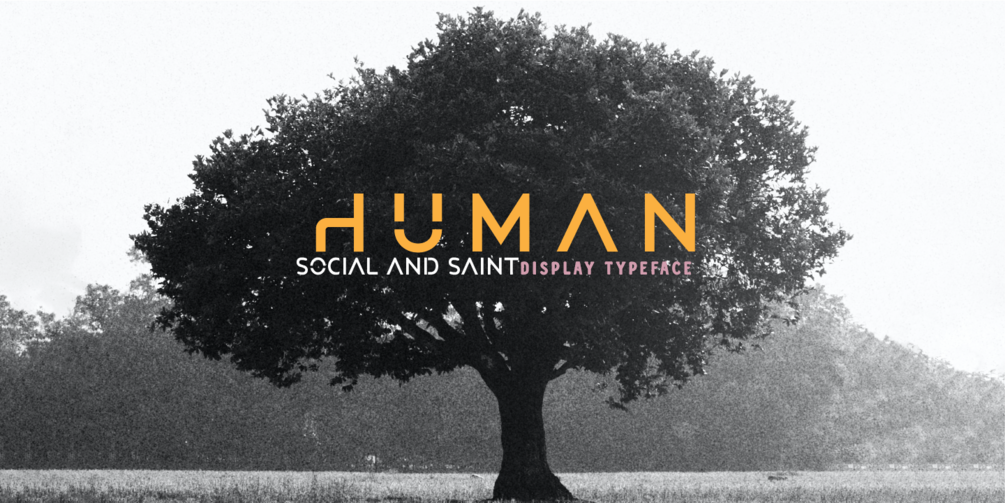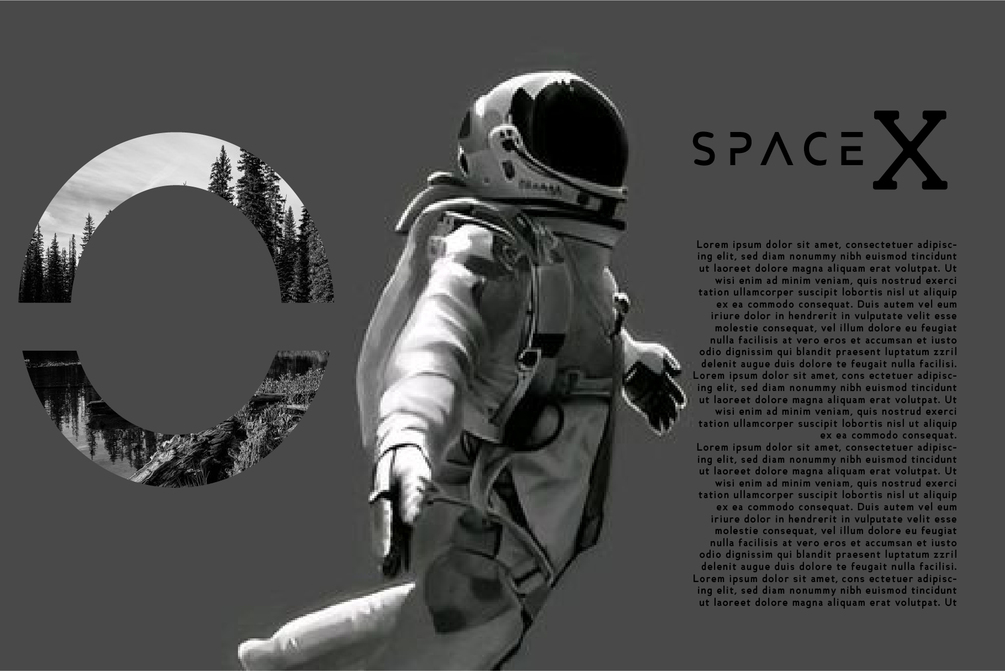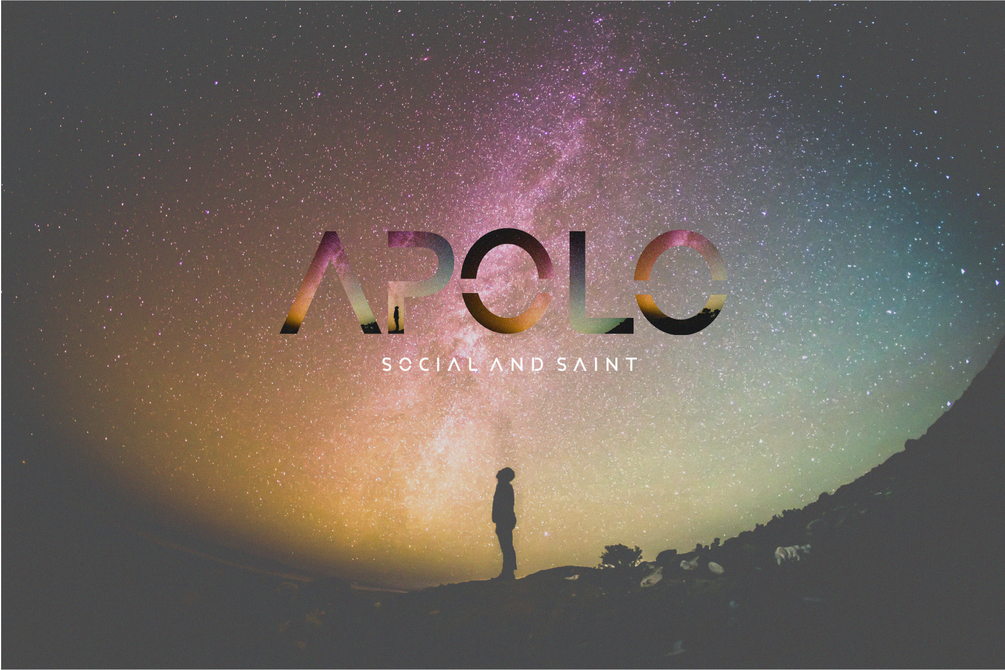
Social Sains
Makmur Studio and ForzaType have embarked on a captivating collaboration, crafting an atmosphere of futuristic high-tech style in their exclusive font.
When they joined forces, they decided to give the font a name that reflects their commitment to the social and scientific aspects, adding a layer of depth to the project. The font they have produced can infuse a modern and futuristic touch to a variety of design elements, ranging from book titles to headlines and text in various creative projects.
Your imagination is the only limit, as this font is perfectly suited for use in diverse projects, such as the ever-evolving world of robotics, awe-inspiring virtual reality experiences, or even the exploration of the mysterious realm of outer space. Even in the realm of sports, this font will provide a dynamic and modern appearance that will make your message stand out in the eyes of your audience. Overall, this partnership has created a font that not only speaks to the future but also immerses you in it.